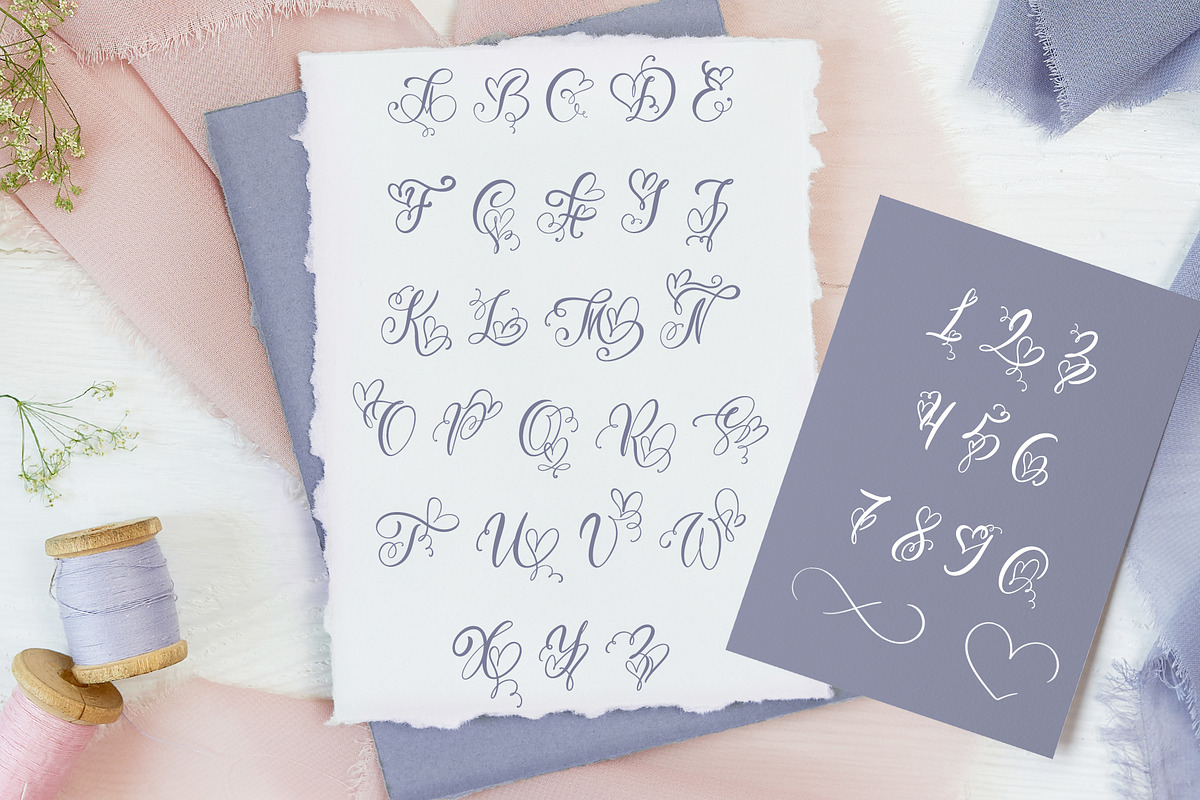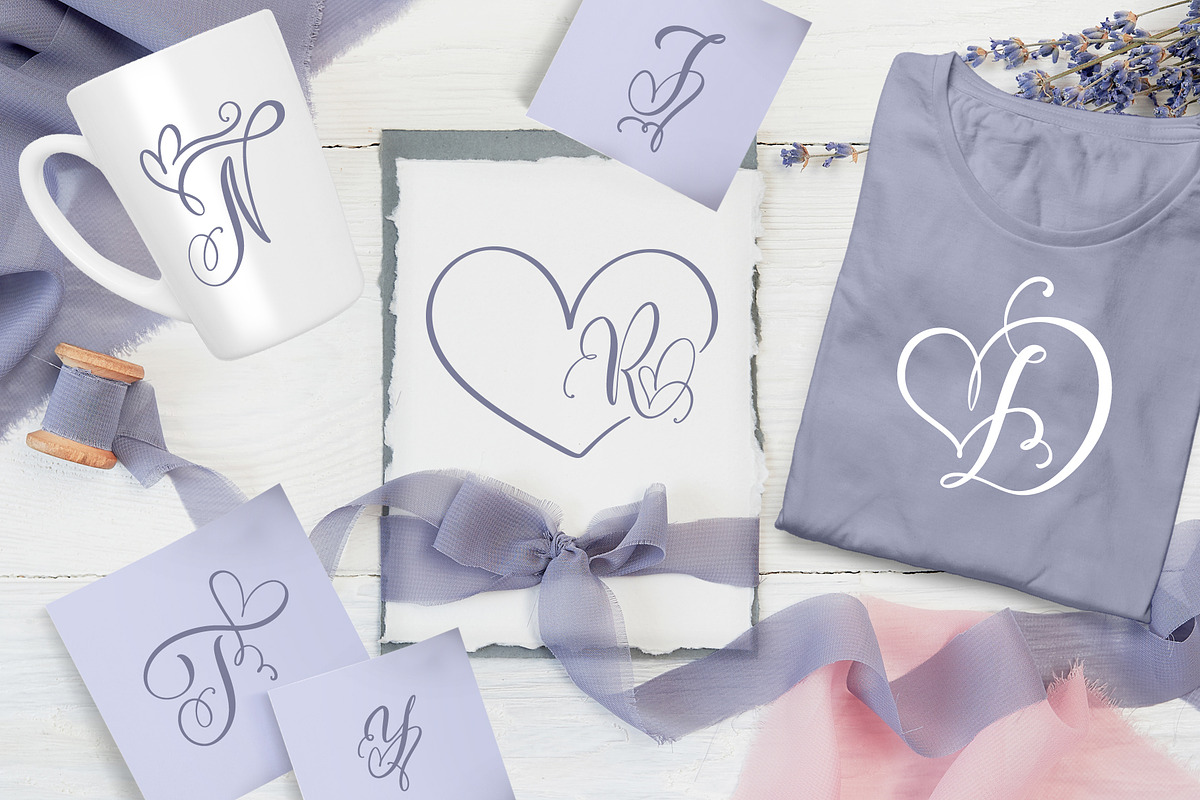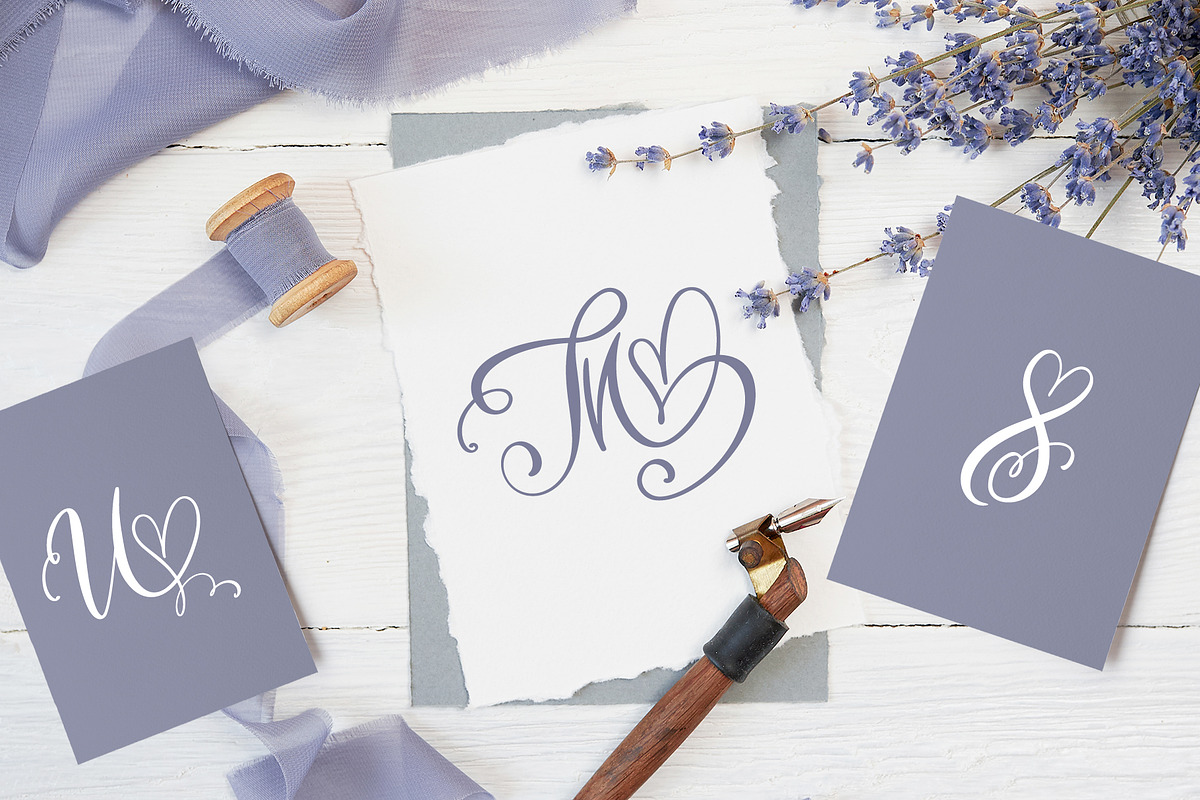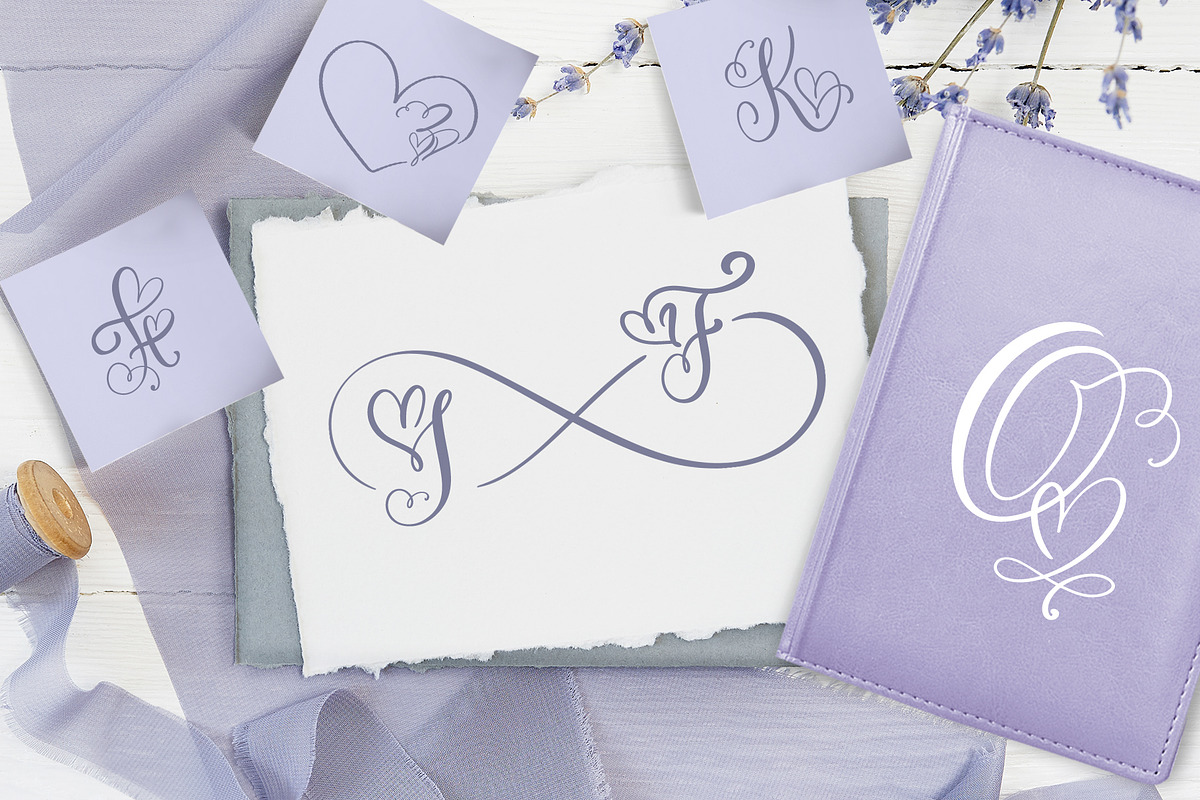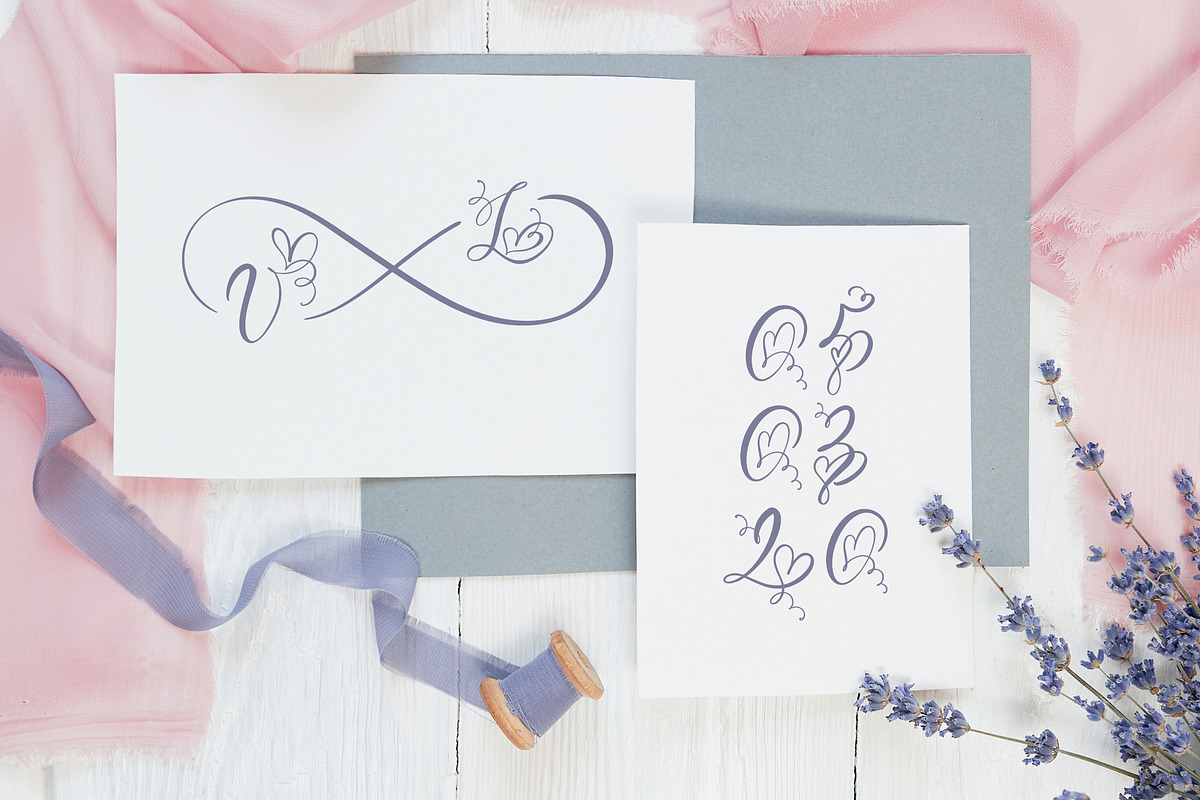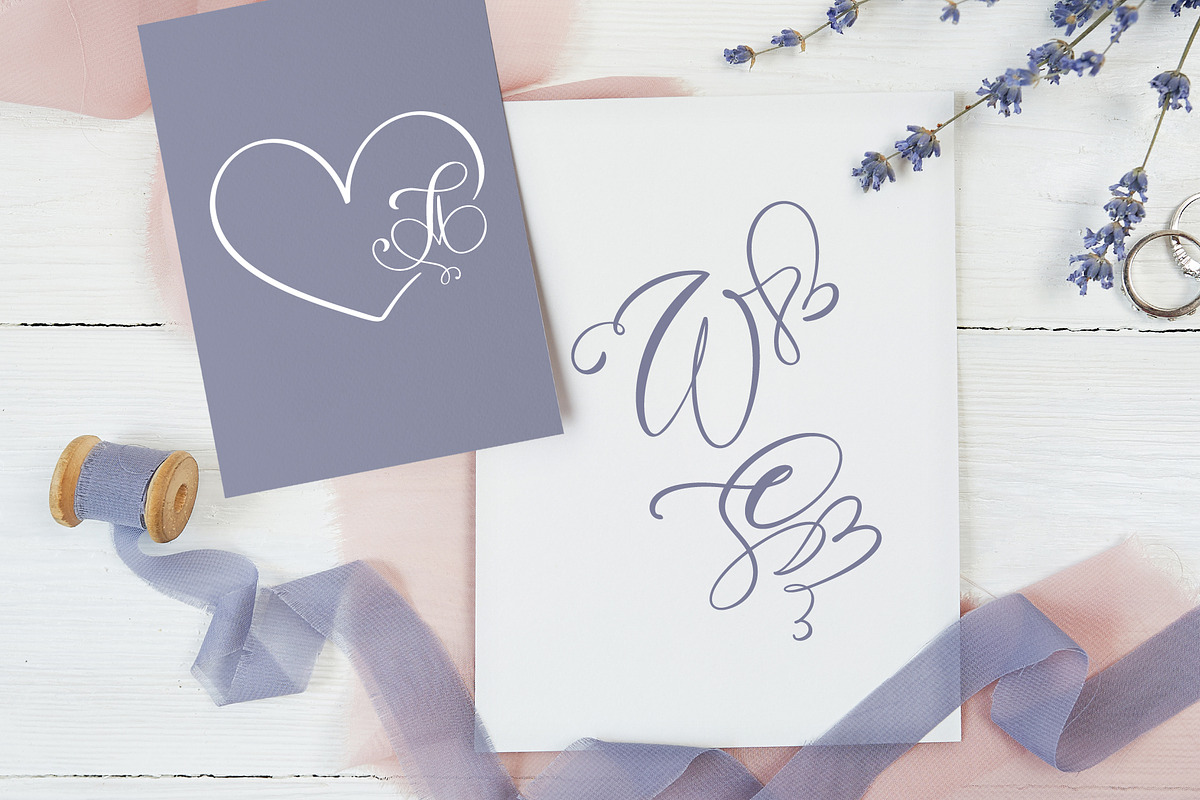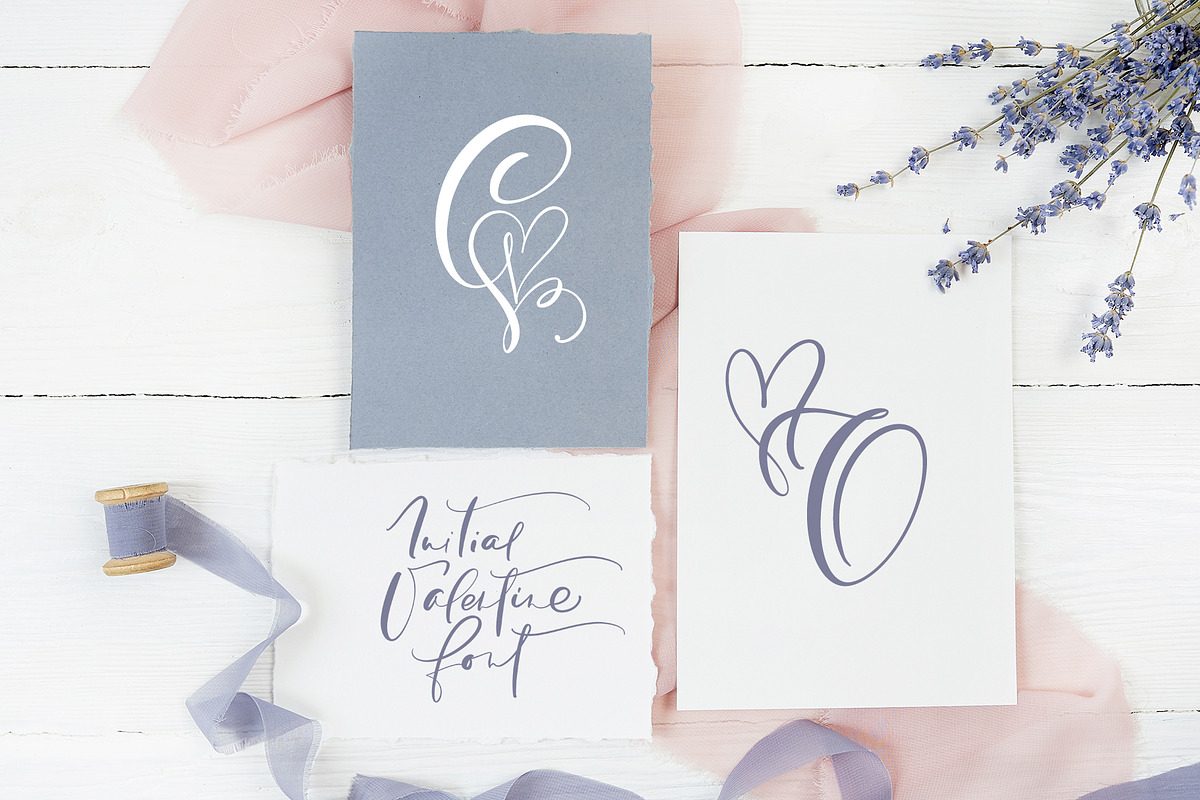
Initial Valentine Font
Initial Valentine Font includes unique flourish monogram letters with form of heart that give feeling love for wedding holiday Valentines greeting cards, logo, invitations, etc. Elegant calligraphic lines give romantic freshness to your handmade design.
In this font CAPITAL and lowercase letters are same. Therefore, you can use capital or lowercase letters. Also sign "infinity" on keys ! (exclam), and "heart" on sign @ (at). In the sign of infinity and heart, you can insert any letters.
Decorate your albums, wedding and holiday greeting cards (Christmas, Birthday, Valentine's Day, Mothers Day and other holidays), logos, gift shops, tag, social media, Instagram, Facebook, internet shops presentation.
2. This font is not for writing words or sentences, but for monograms. For example BY or T&W.
Initial Valentine Font by Happy Letters fits naturally into Branding, posters, packaging, typography.